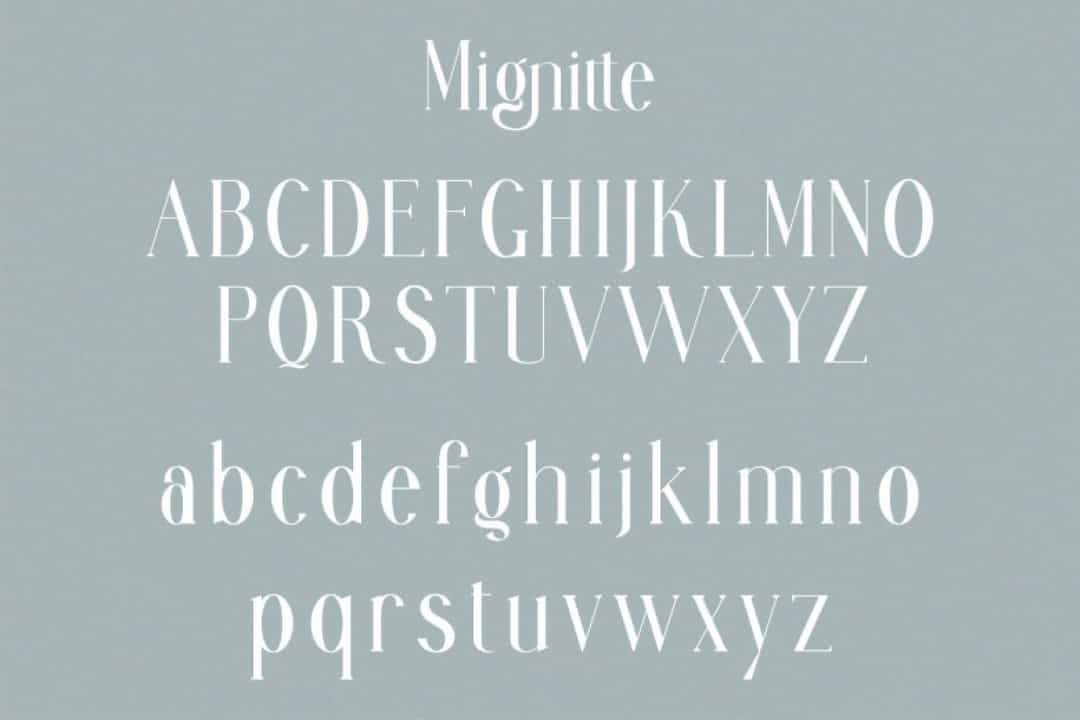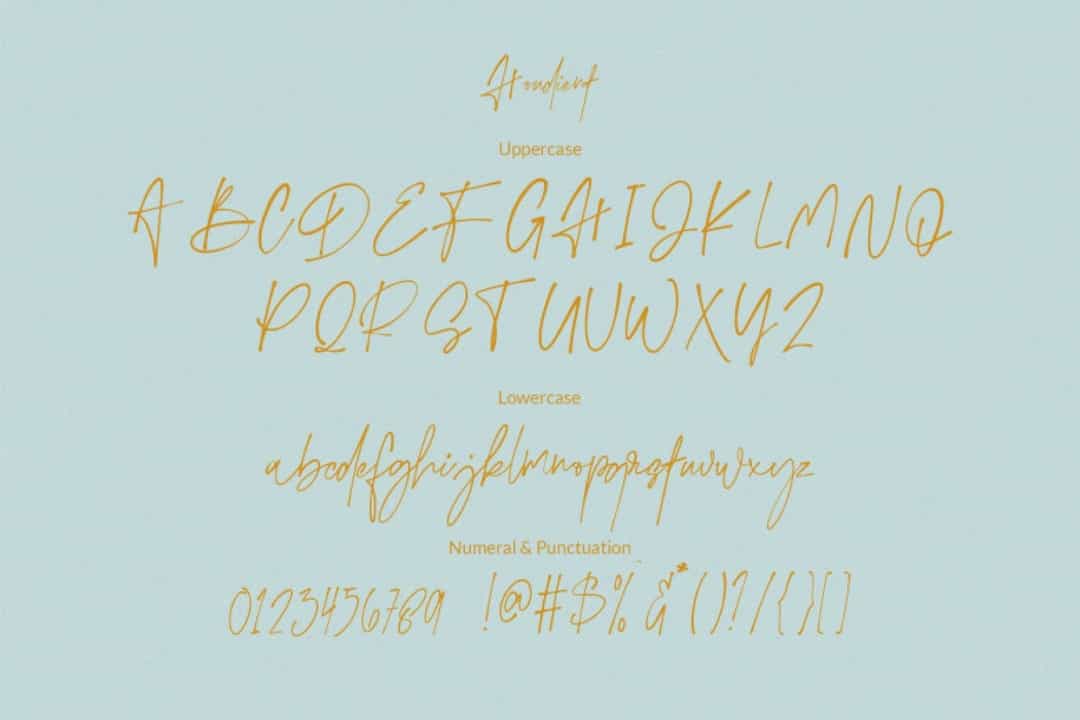
Mignitte & Houdient Font A modern Duo Serif Typeface inspired by iconic minimalist logos for creating brochures, templates and videos; advertising branding logos; as well as creating branding logos.